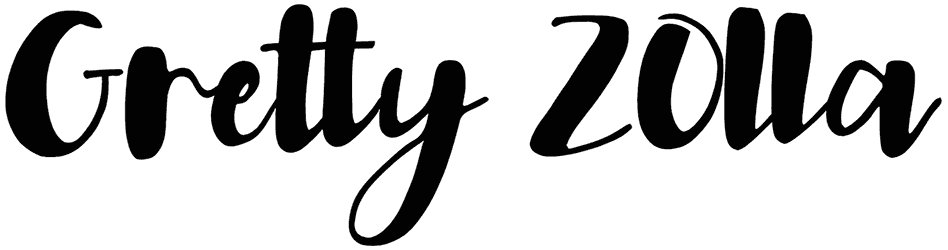
Gretty Zolla Font
Gretty Zolla is a fresh, cool, and cute script font that comes with additional decorative swashes and clip-arts. Each character has bold and thin parts in appearance, and even some lowercase letters have zig-zag tails, which generally makes it suitable for creating memorable designs and also writing your personal diaries.
You can use this adorable coffee font in a variety of creative projects such as apparel, greeting cards, social media, stationery, signs, and more.